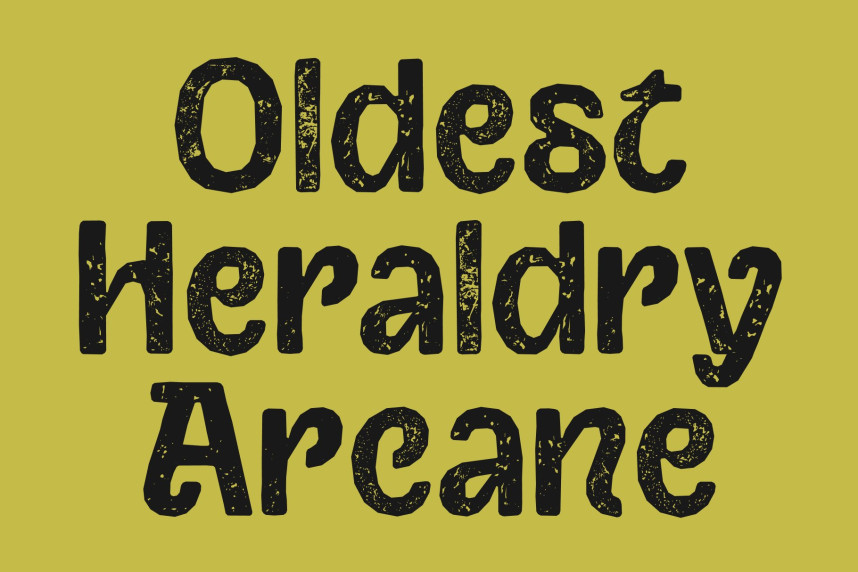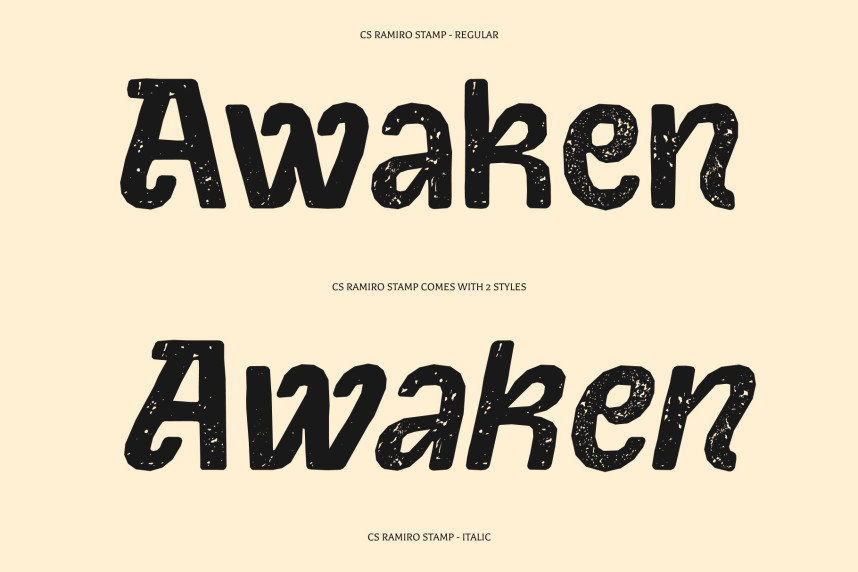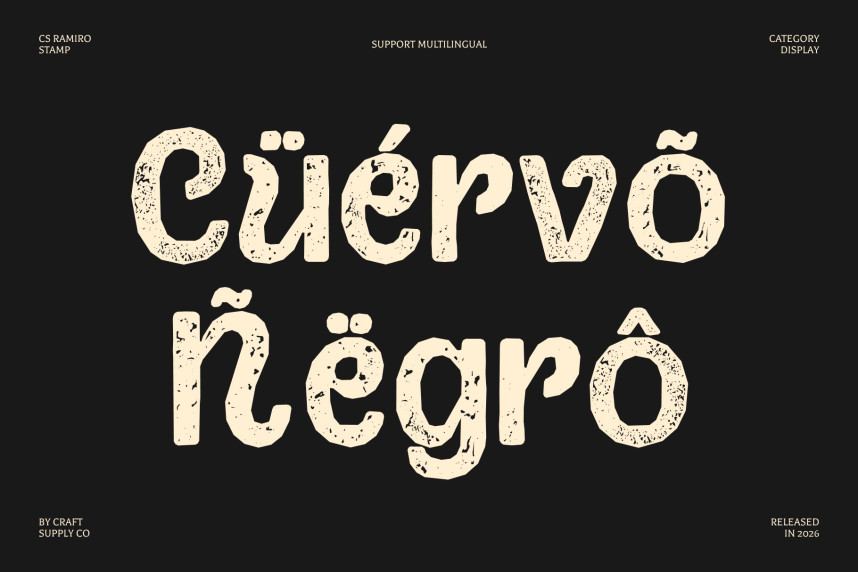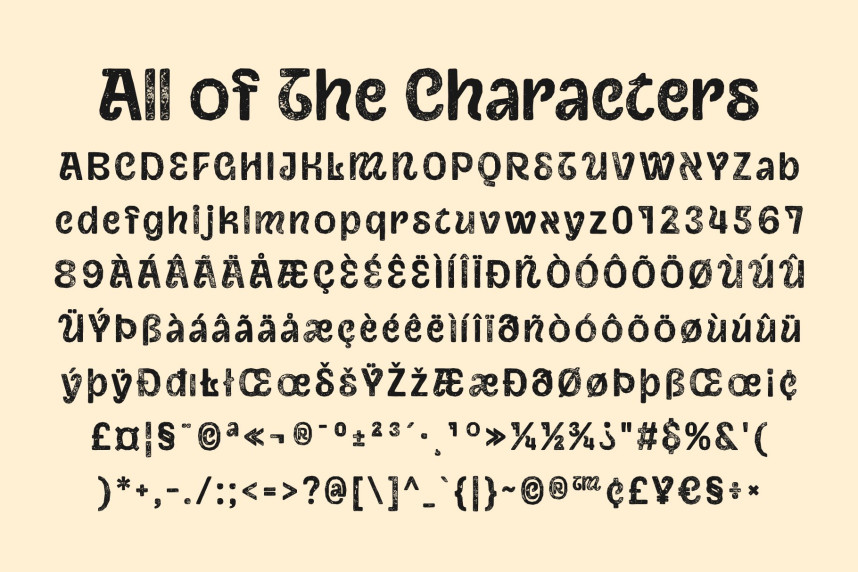
CS Ramiro Stamp Font
CS Ramiro Stamp Font – Renaissance Display Sans Serif Font: Where Classical Elegance Meets Vintage Stamp Texture
Ornamental Renaissance Forms with Timeless Sophistication
This is a Renaissance display sans serif font that captures the ornate sophistication and graceful proportions of classical typography. Inspired by the artistic beauty of Renaissance design, its refined structure blends historical charm with a modern artistic approach. Every character feels elegant, decorative, and full of heritage, making the font perfect for luxurious and culturally inspired visual compositions.